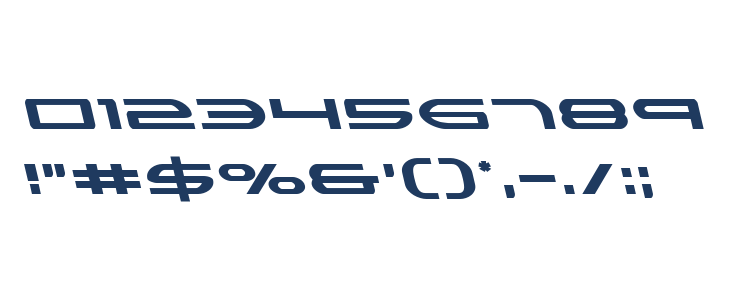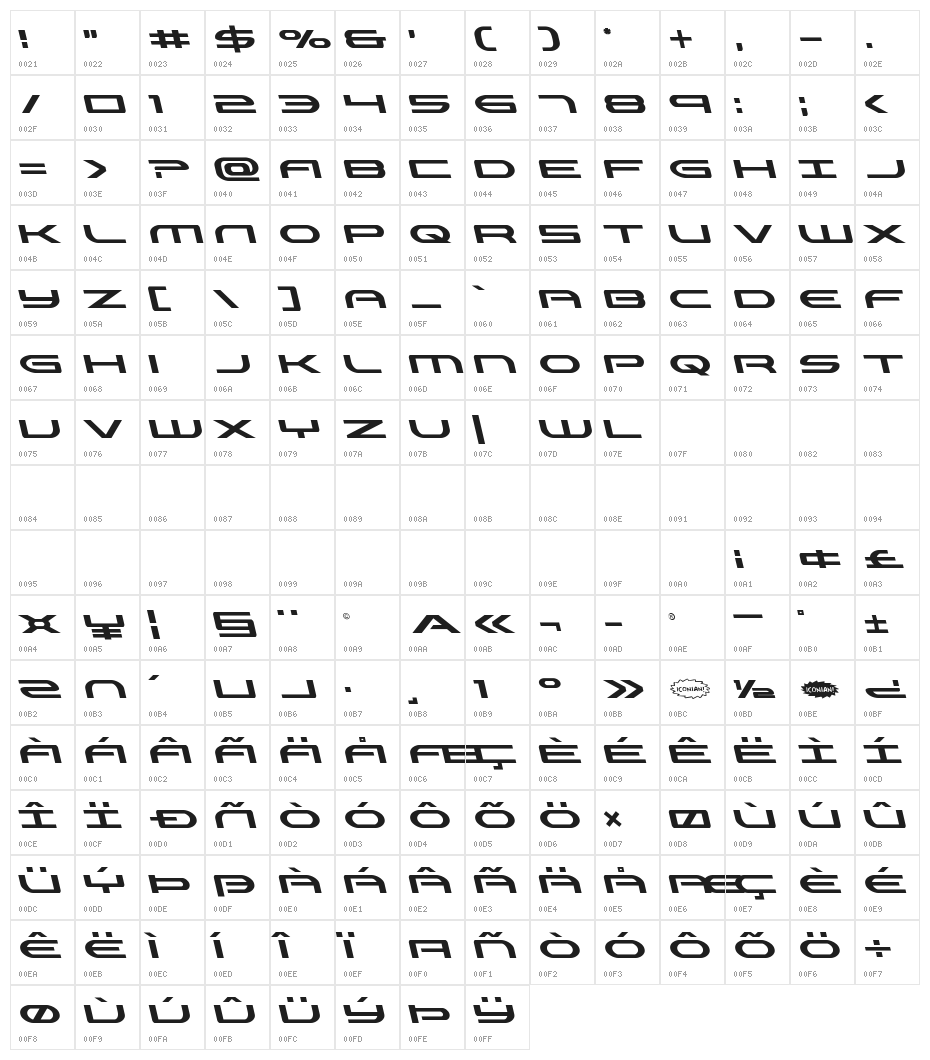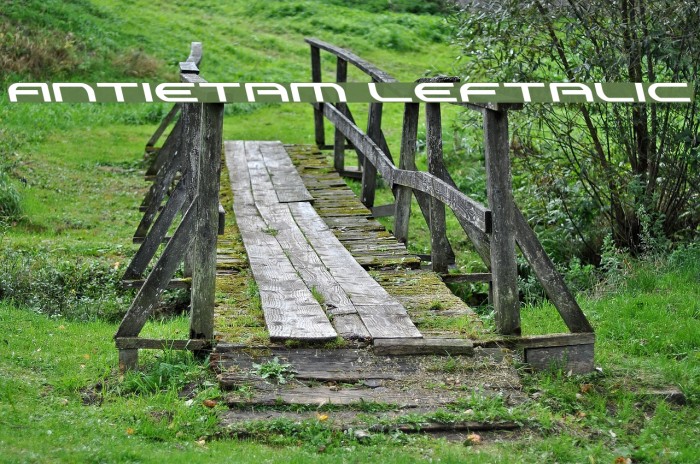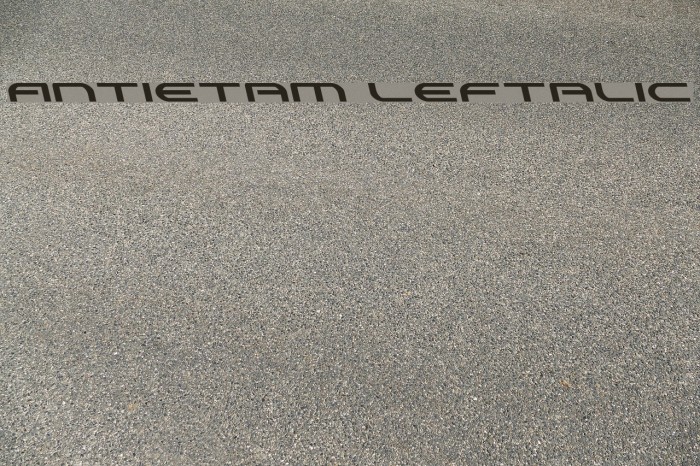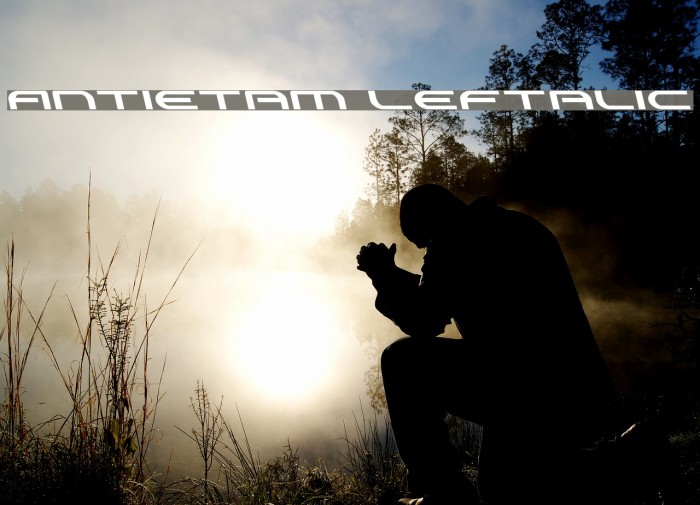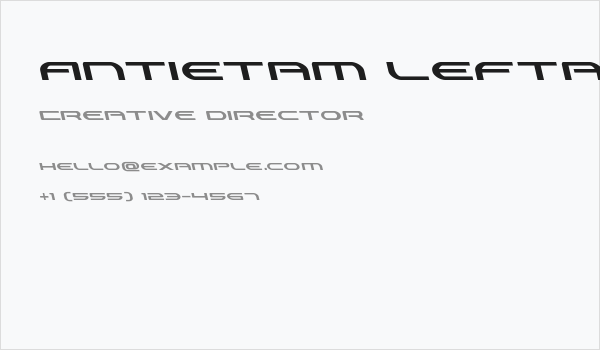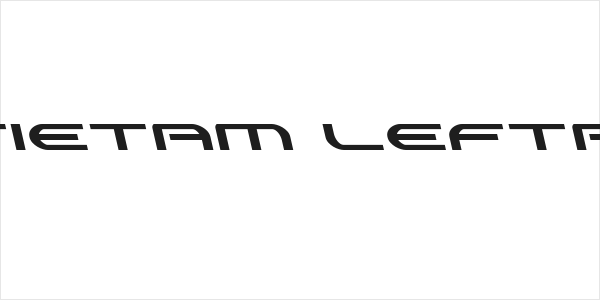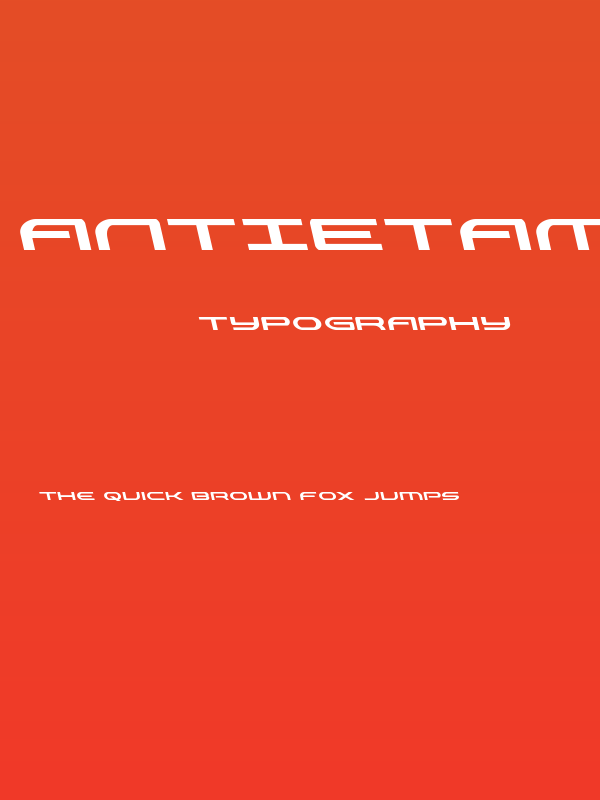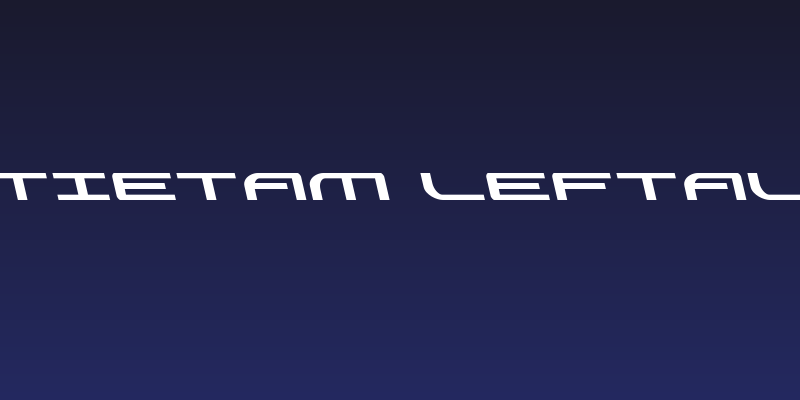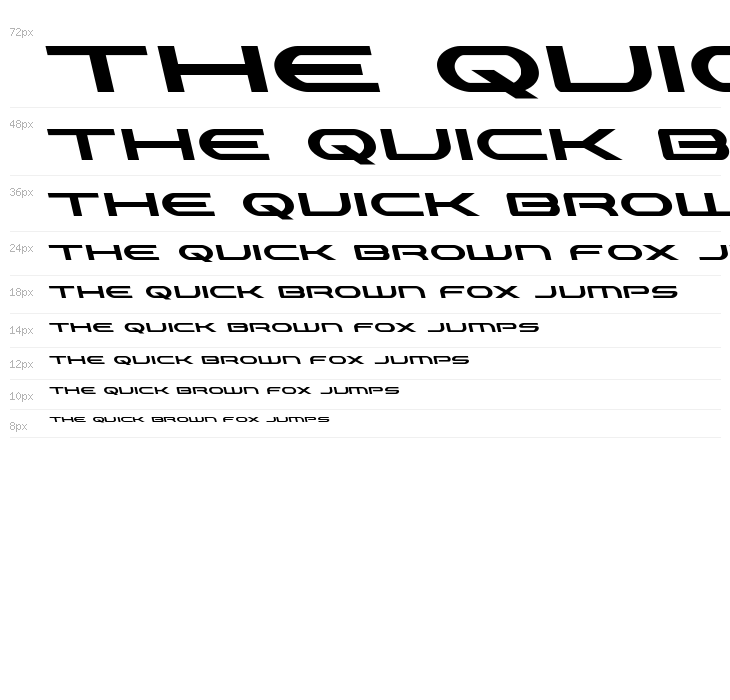
Antietam Leftalic Font
Antietam Leftalic Description
This font features a futuristic and sleek design with a distinct geometric structure. The characters are slightly slanted, giving a dynamic and forward-moving appearance. The strokes are consistent in thickness, providing a uniform look across all characters. The uppercase and lowercase letters maintain a similar style, with rounded edges and sharp angles that create a modern aesthetic. The numerals and special characters follow the same design principles, ensuring cohesion throughout the font. Its unique style makes it stand out, suitable for projects that require a contemporary and innovative touch.
| Use Case | Logos, Headlines, Branding |
| Proposed Projects | Ideal for tech branding, sci-fi themed projects, modern logos, and innovative product packaging. |